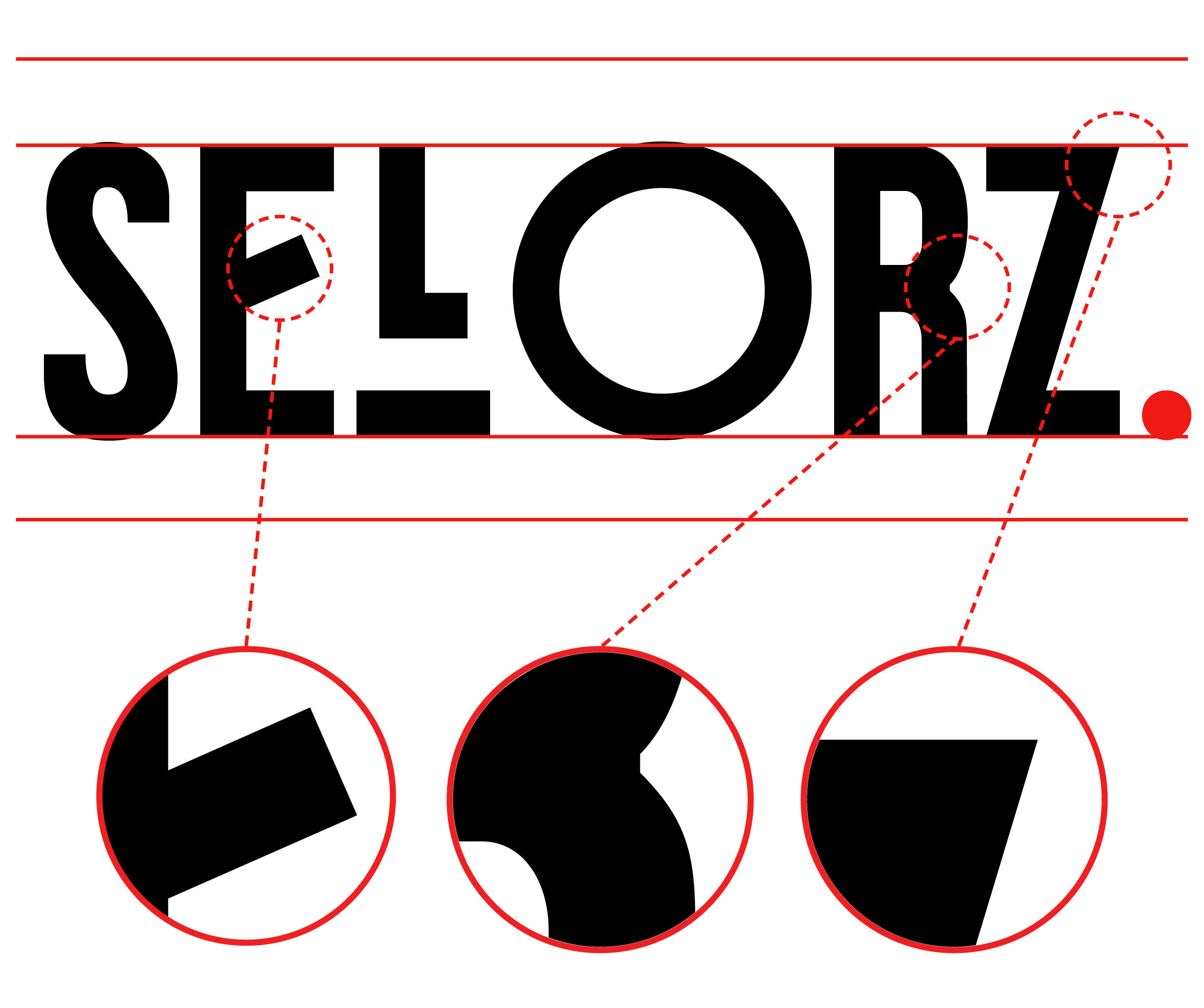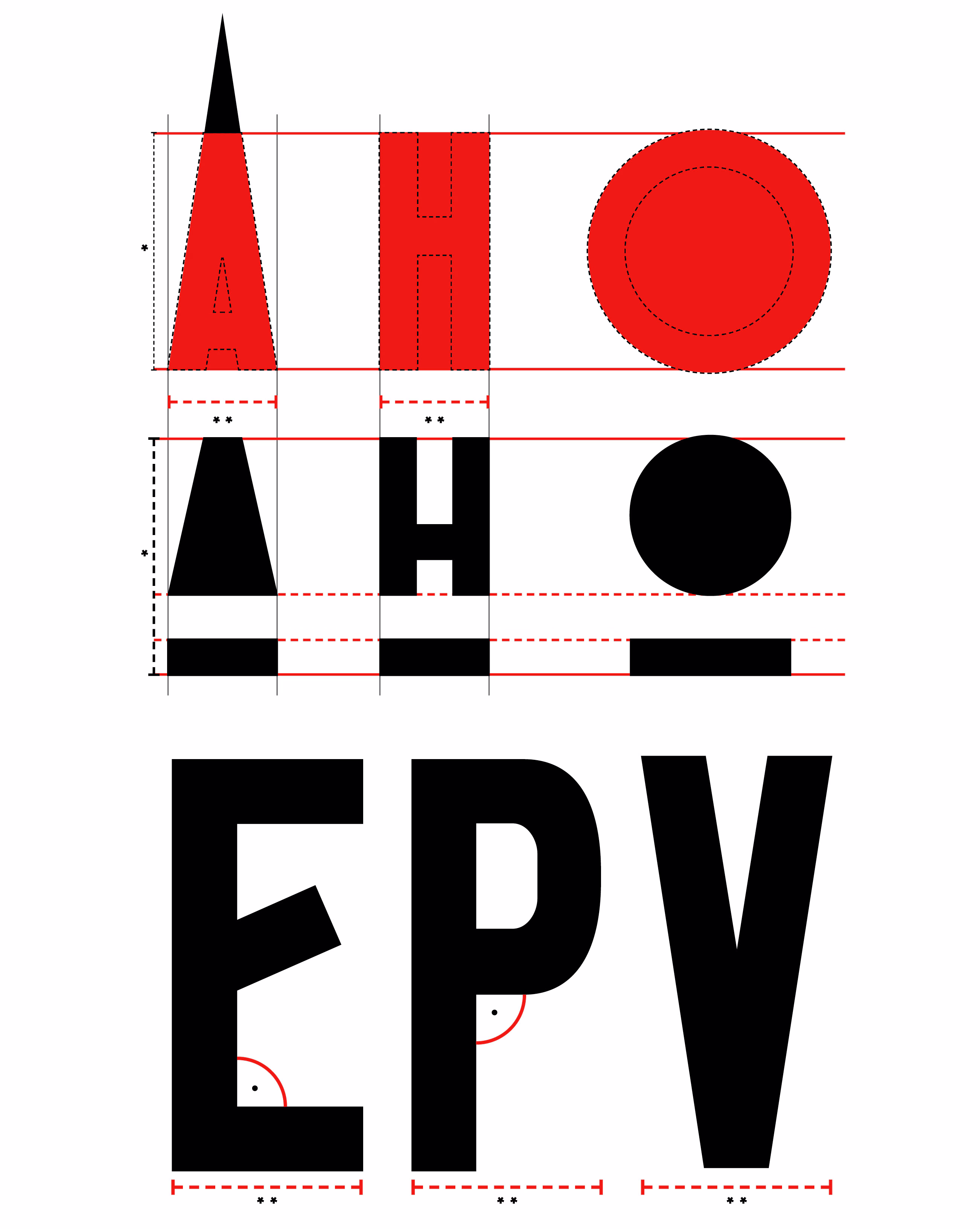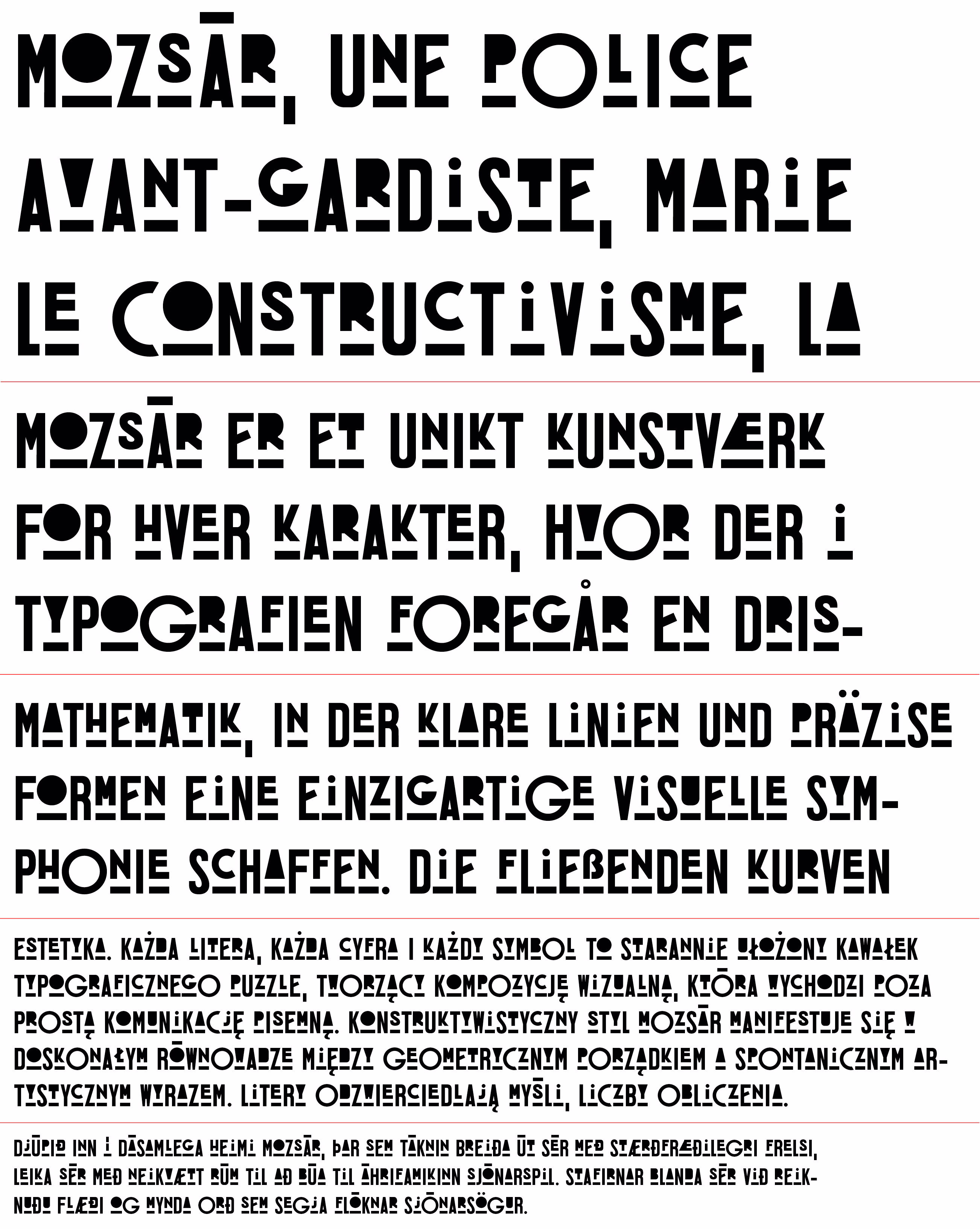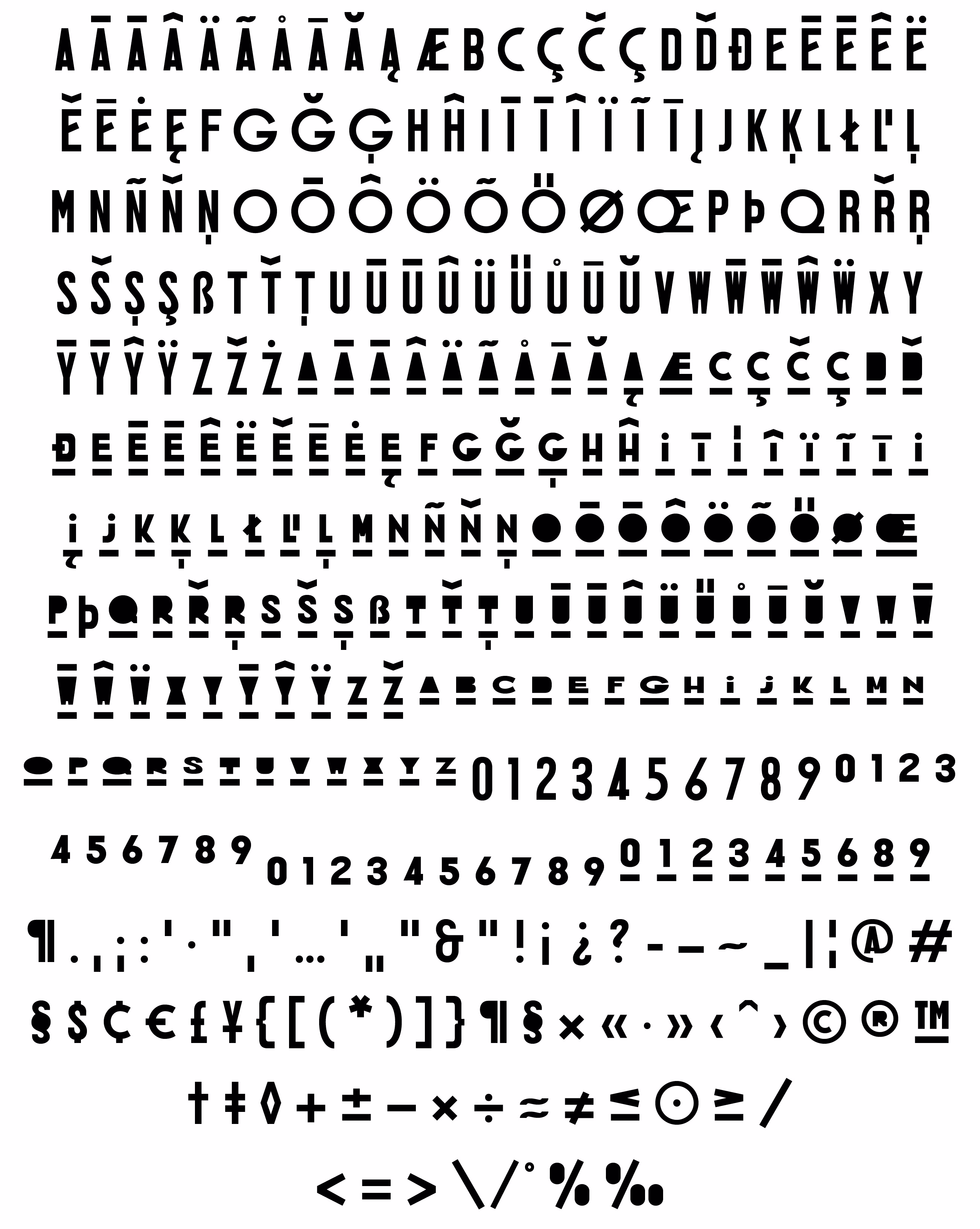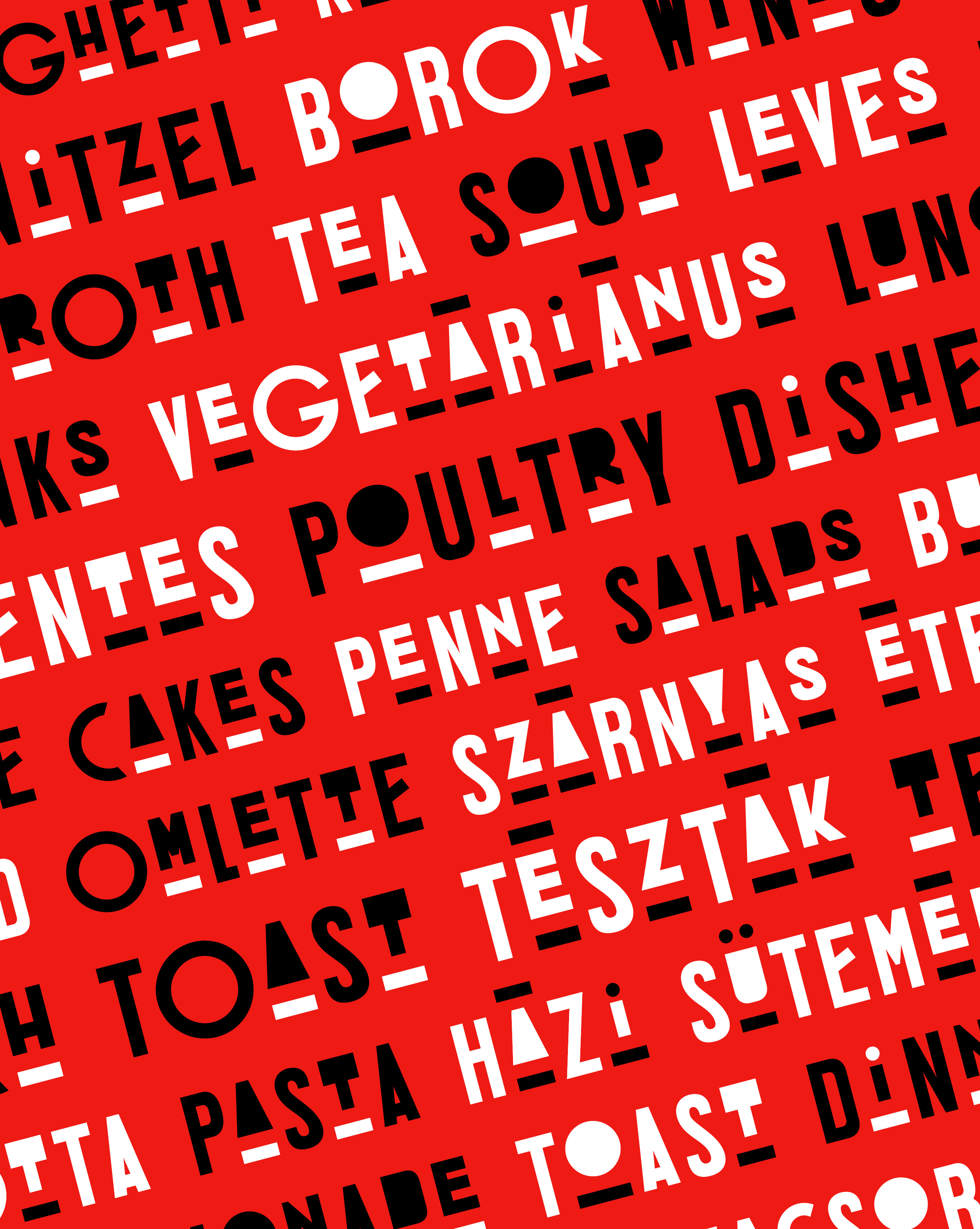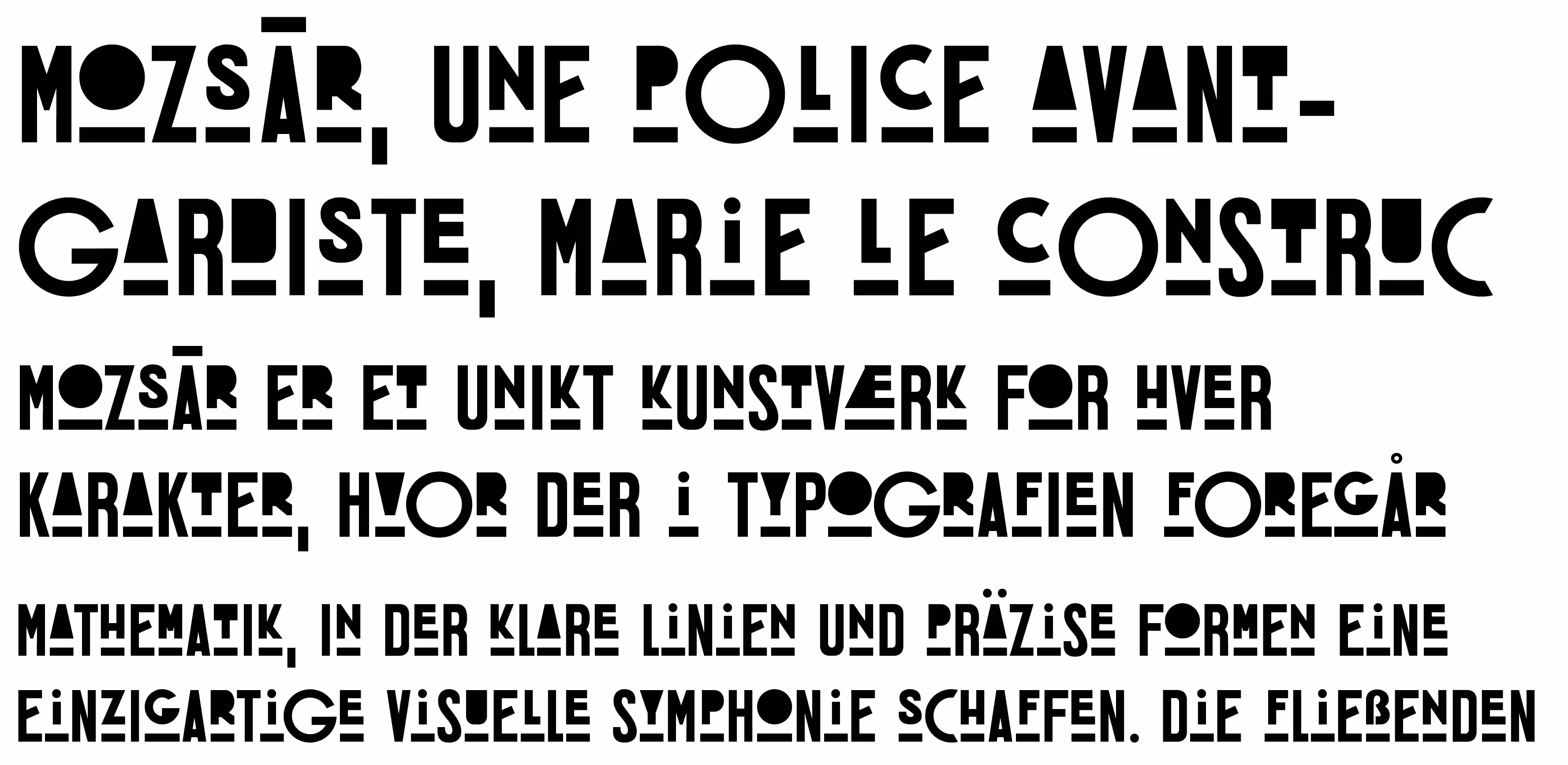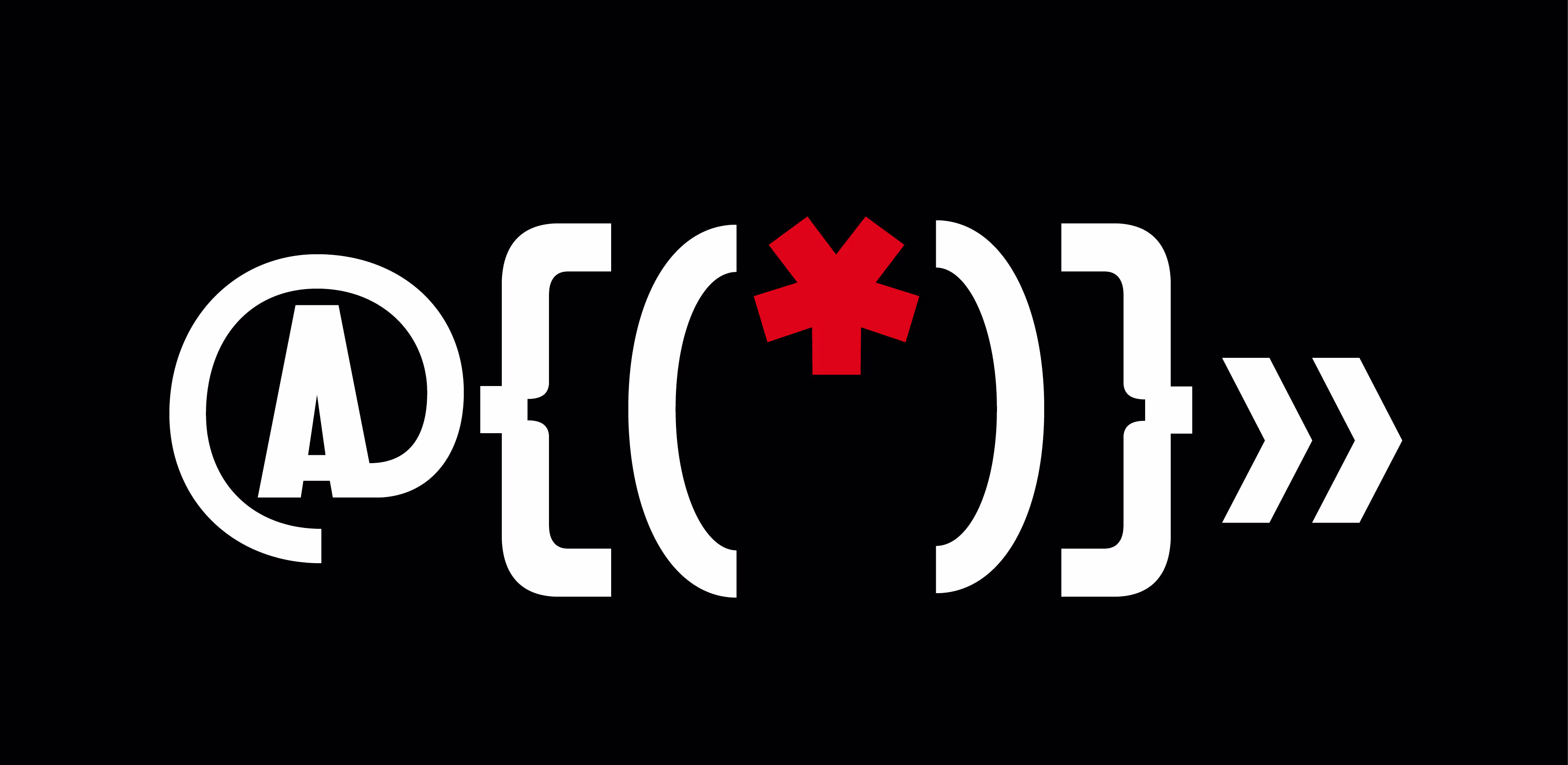
The Mozsár
Mozsár is built on precise geometric forms and draws visual inspiration, though not strictly, from the constructivist design movement to create a bold and distinctive font.
Each Latin glyph and number includes two stylistic variations that alternate in a pseudo-randomized way. When used in most text editing software with contextual alternates enabled, this feature introduces a dynamic and rhythmic texture to the text while preserving visual coherence.
Originally conceived as an experimental departure from classical typographic rules by intentionally breaking many conventions, the typeface has since been refined through the integration of established practices to accommodate broader usability.
Fun fact: Mozsár (meaning mortar in English) is named after Mozsár Café, a venue in downtown Budapest that had a bohemian spirit.